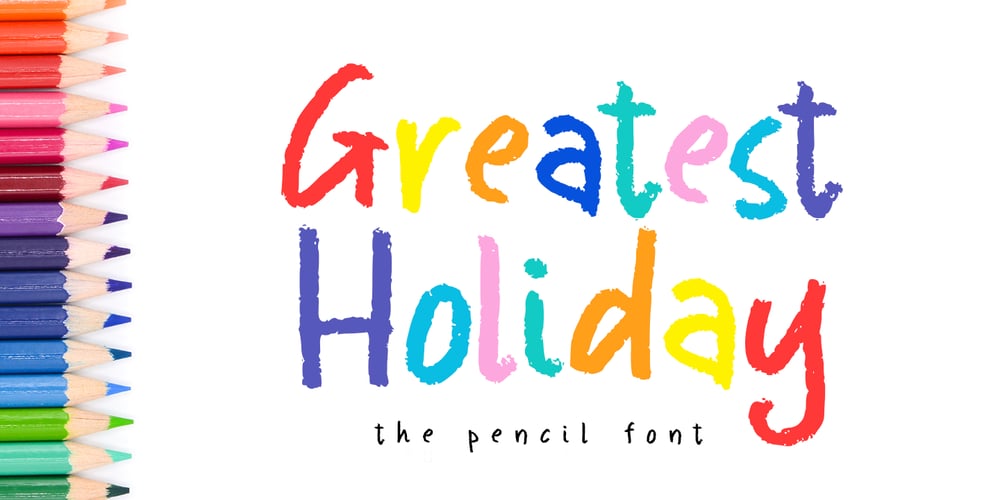
Greatest Holiday
Greatest Holiday font
Greatest Holiday Font Family was designed by Abo Daniel and published by Abo Daniel. Greatest Holiday contains 2 styles and family package options. GREATEST HOLIDAY- the pencil font -is amazing natural font. It made based on real handwriting.It can be used for cafe or coffee shop menu lists on board, branding, photography, invitations, watermarks, advertisements, product designs, labels, product packaging, book content, quotes and more.It came with number & punctuation, multilingual support, and PUA encodeHope you like this product.RegardsAbo Daniel